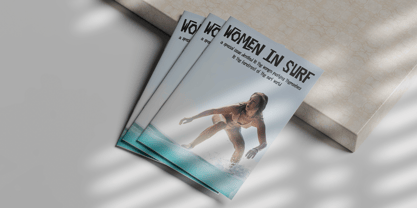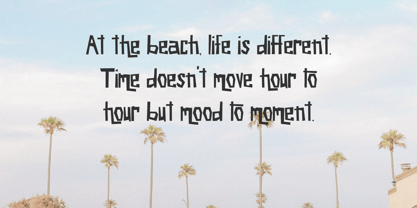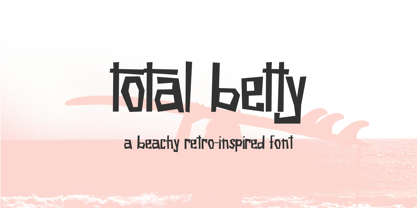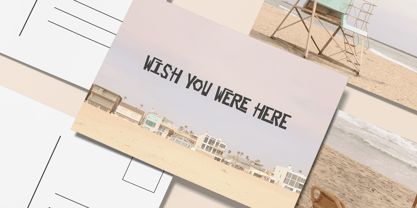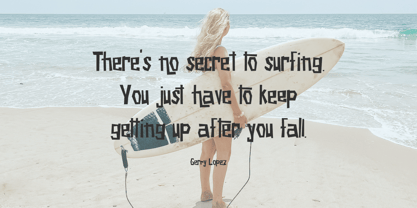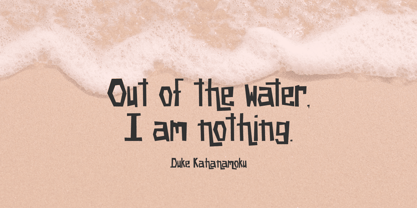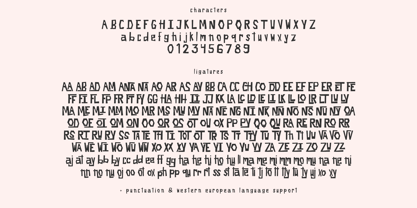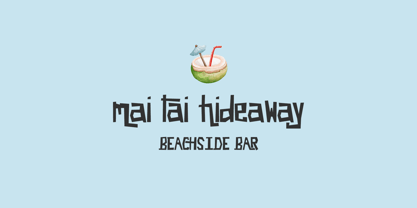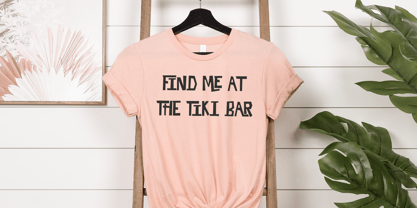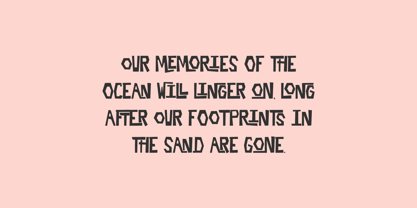
Total Betty
The Total Betty Font Family was designed by Beck McCormick and published by BeckMcCormick. Total Betty contains 1 styles. More about this family
She’s a Total Betty! Introducing a new retro display font packed full of ligatures, Total Betty is fun and playful. Total Betty can be used for retro designs, as well as more modern options - think logos, branding, beachy-themed items, restaurant & bar menus, invitations & other print design, and more.
Total Betty’s ligature combinations that are nested together, creating a unique look. Please refer to the last image to view all letter combinations!
Total Betty includes:
- full upper + lowercase characters
- numbers + punctuation
- 186 ligatures
- Western European language support - English, French, Spanish, Portuguese (Brazil), Portuguese (Portugal), Italian, German (Germany), German (Austria), Dutch, Danish, Swedish, Norwegian (Bokmål and Nynorsk), Finnish, Icelandic, Irish, Welsh